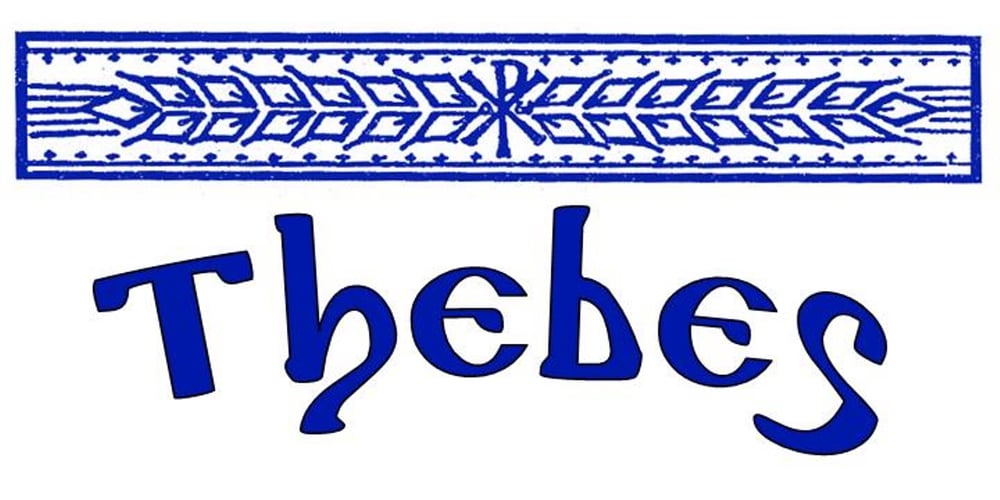
Thebes
Thebes font
Thebes Font Family was designed by Brett T. Johnson and published by Simeon out West. Thebes contains 4 styles and family package options. Thebes is a font based on an ancient Coptic script. The Copts are Egyptian Christians, and theirspoken language is a dialect of ancient Egyptian. Their letters, however, are Hellenized andresemble the Greek Alphabet and do not have any relationship to hieroglyphics. Thebes comes with full punctuation, a character 535 glyphcharacter set that allows the user to type in most Western European Latinalphabet languages, Cyrillic, and Modern Greek. Being a decorative font, it works best at larger point sizes.